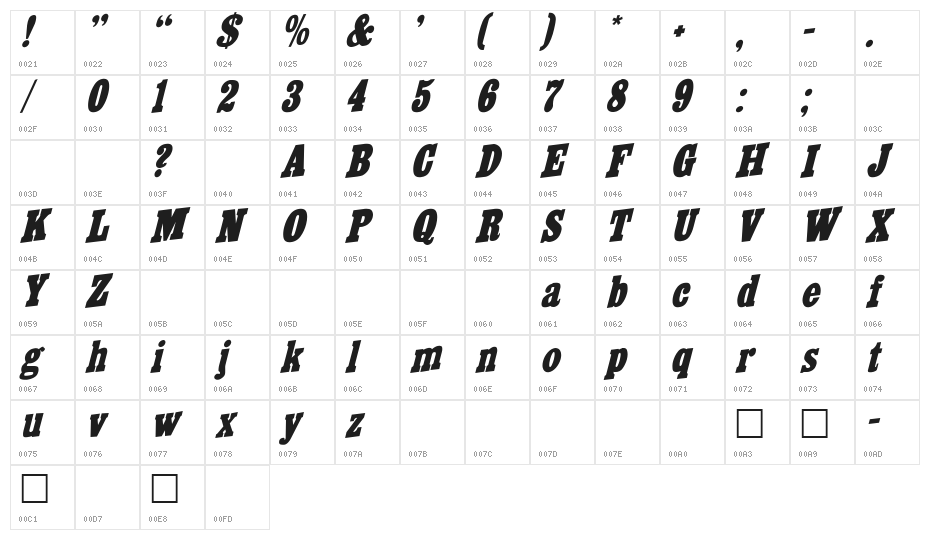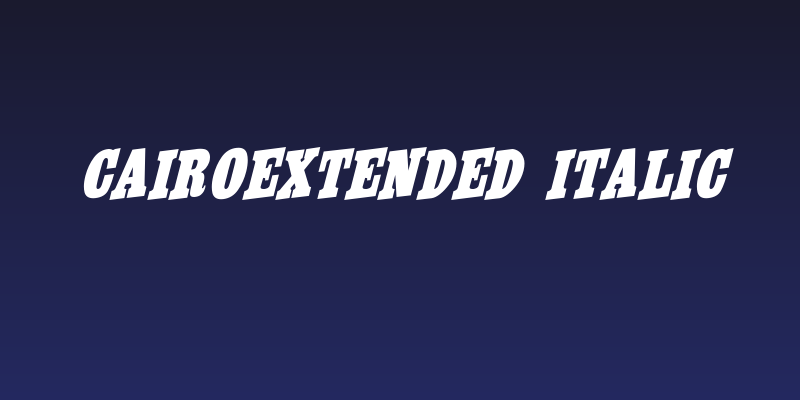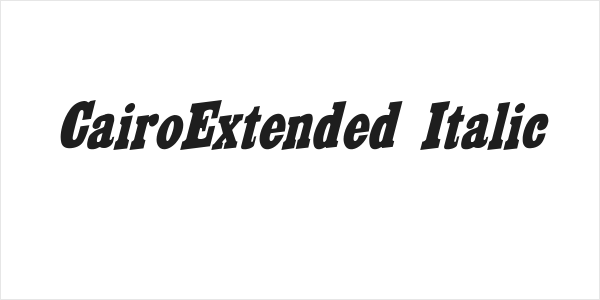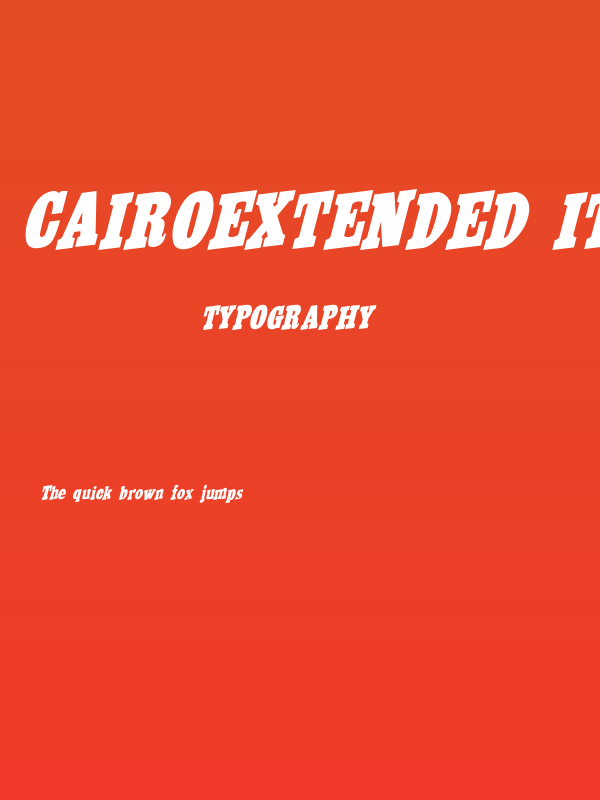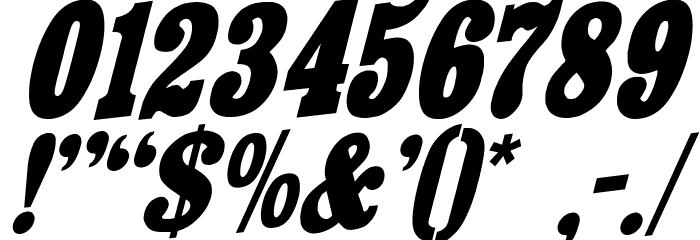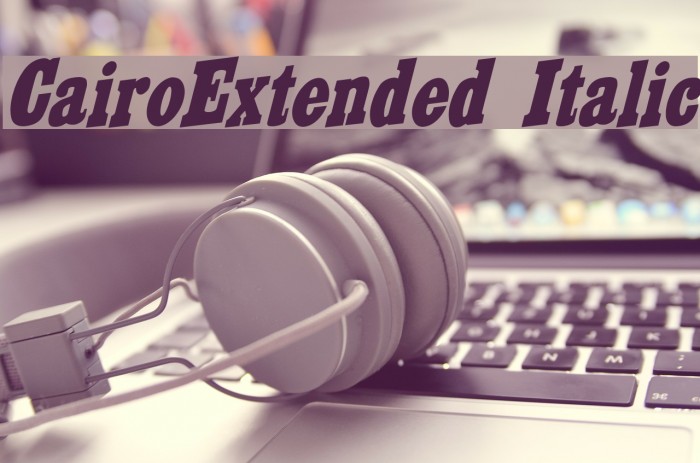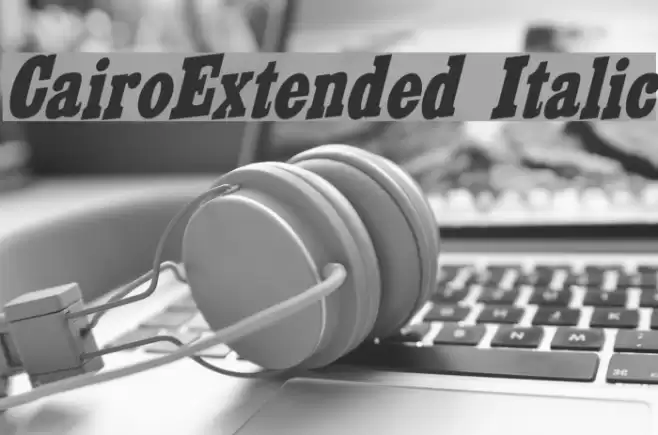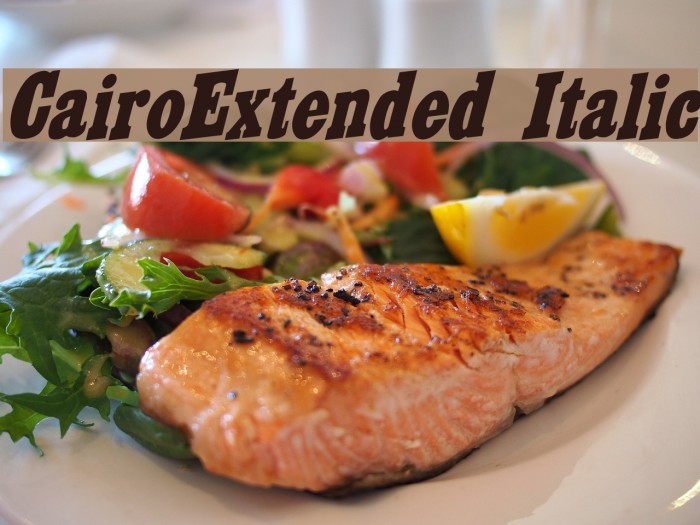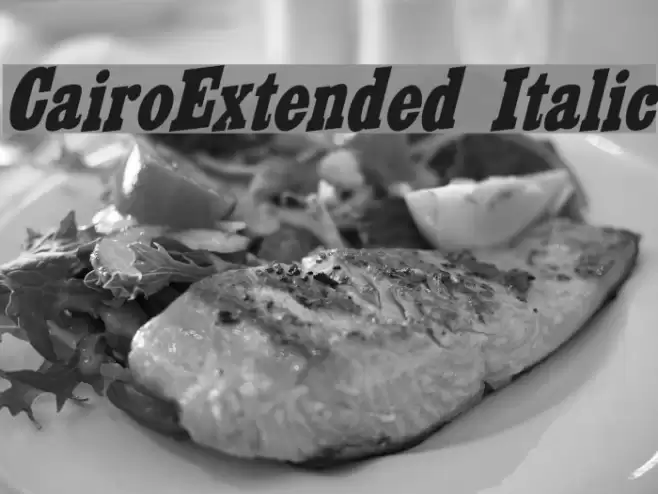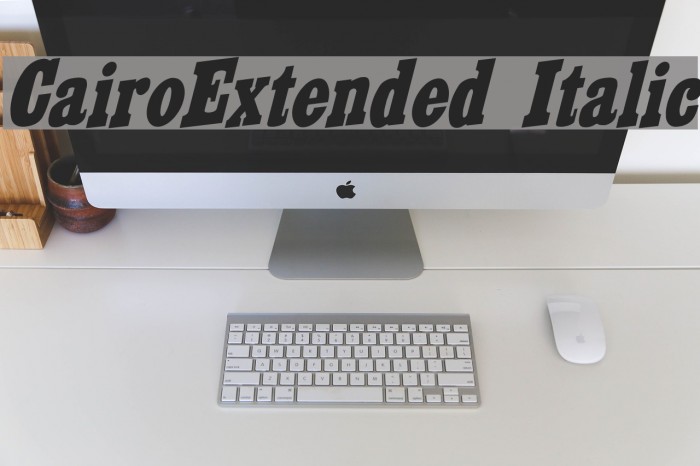
CairoExtended Italic Font
CairoExtended Italic Description
This font features a bold and dynamic style with a pronounced italic slant, giving it a sense of movement and energy. The characters are robust and slightly condensed, with thick strokes that provide a strong visual impact. The uppercase letters are commanding and assertive, while the lowercase letters maintain a consistent flow, enhancing readability. The numerals are equally bold, ensuring clarity and emphasis. Special characters are well-integrated, maintaining the overall bold aesthetic. This font is ideal for making a statement in any design context.
| Proposed Projects | Ideal for headlines, posters, branding materials, and any design requiring a bold statement. |